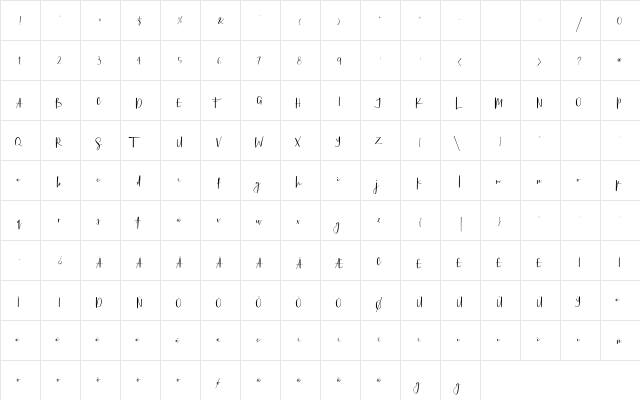
Bellissima Regular
Design Context for Bellissima Typeface
Bellissima is a composed and adaptable typeface that performs quietly and consistently across a wide range of design contexts.
Pro Tip: Pair Bellissima with a font of contrasting weight or personality to build a more expressive typographic hierarchy.